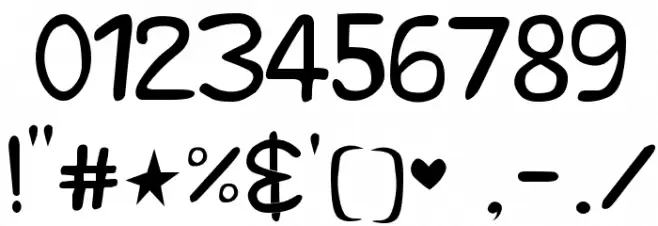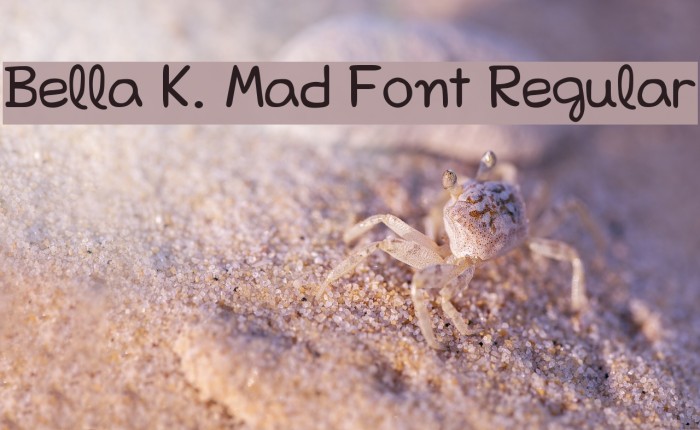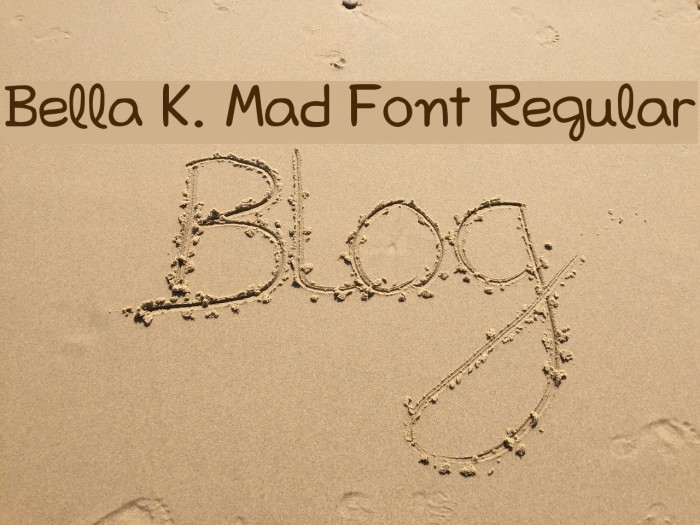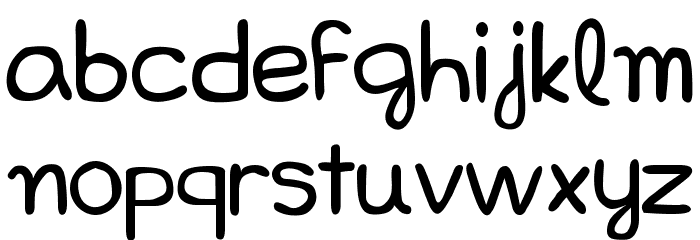
Bella K. Mad Font Regular Font
Bella K. Mad Font Regular Description
This playful and whimsical font features rounded, smooth edges and a hand-drawn aesthetic that gives it a friendly and approachable feel. The characters are slightly irregular, adding to the casual and informal style. The uppercase and lowercase letters maintain a consistent flow, with a slight slant that suggests movement and energy. The numerals and special characters are designed to match the overall style, ensuring a cohesive look across all text. This font is perfect for projects that require a touch of fun and creativity, such as children's books, playful branding, or casual invitations.
A playful, hand-drawn font with rounded edges and a whimsical style from Uncategorized fonts.
- Proposed Projects: Ideal for children's books, playful branding, casual invitations, and creative projects.
- Overall Style: Playful
- Use Case: Headlines, Logos, Invitations